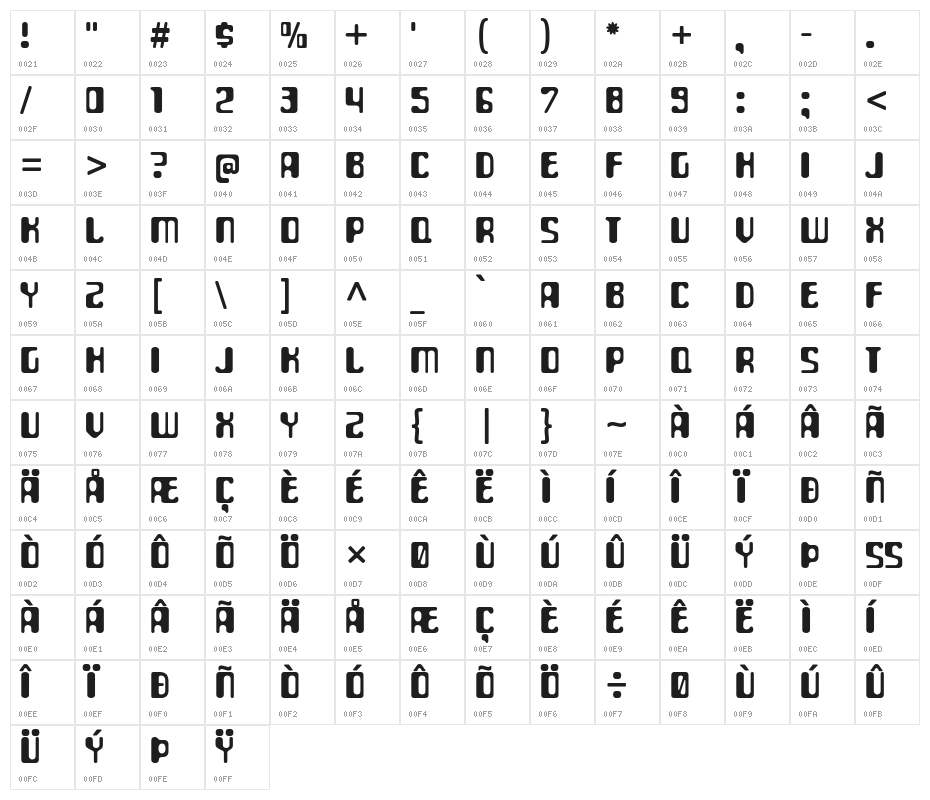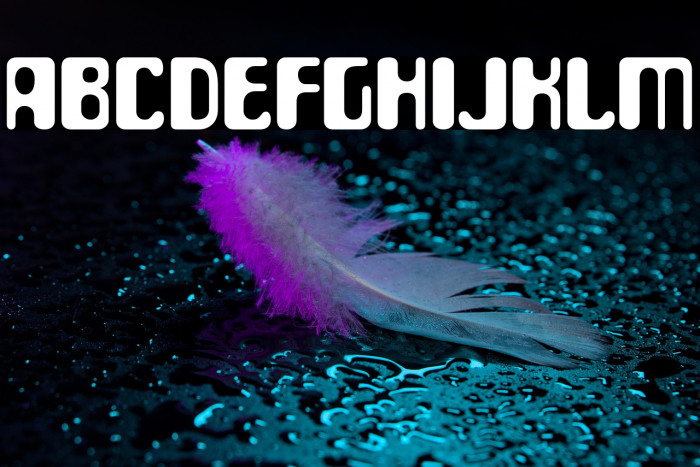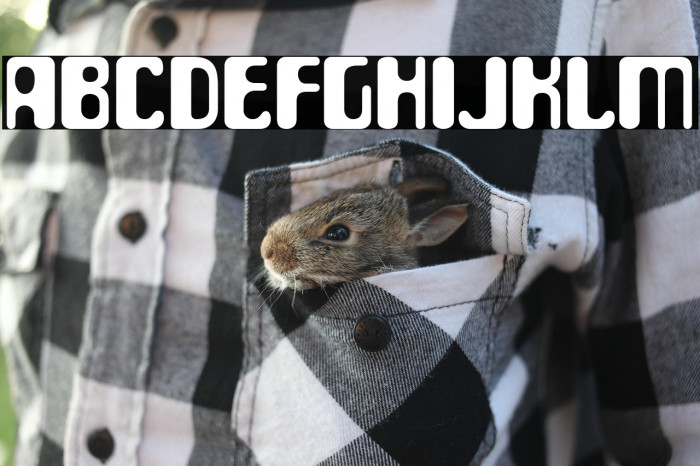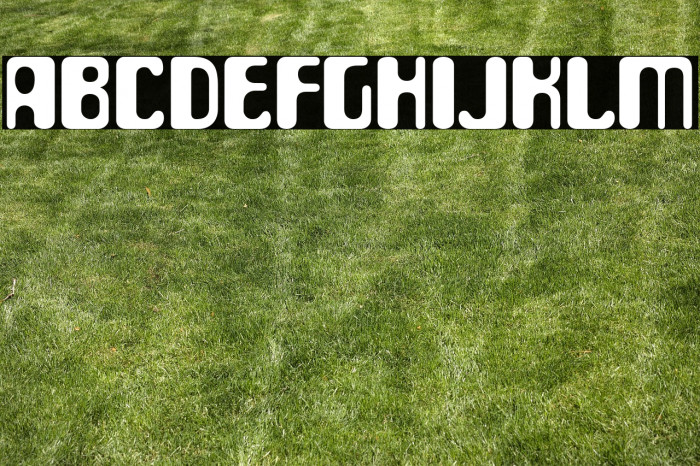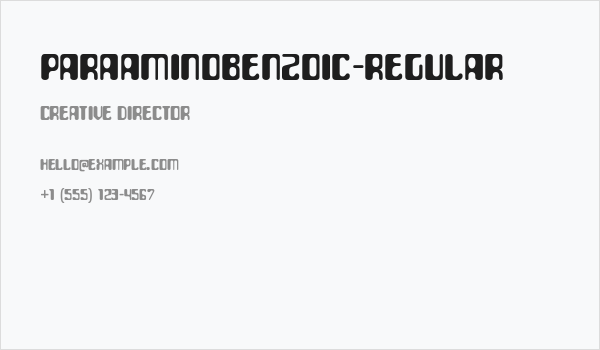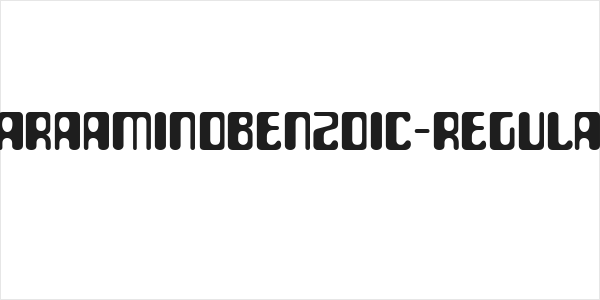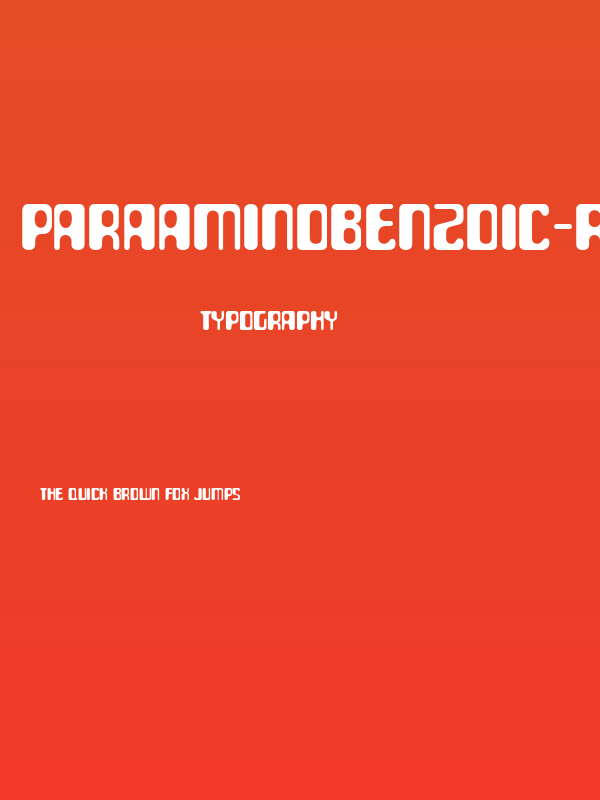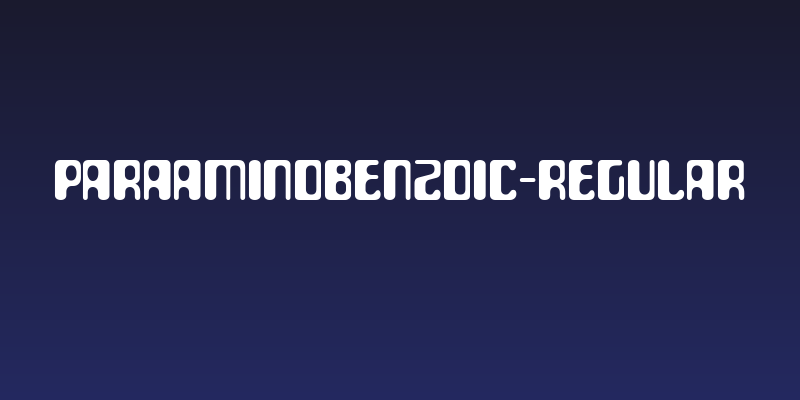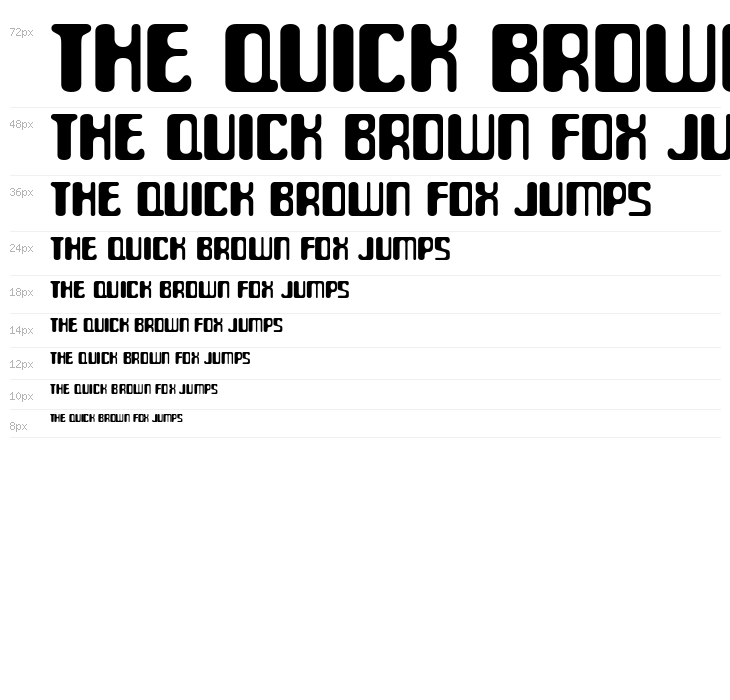
ParaAminobenzoic-Regular Font
ParaAminobenzoic-Regular Description
This font features a bold and rounded style, characterized by its thick strokes and smooth curves. The letters have a modern and playful appearance, with a consistent weight across all characters. The rounded edges give it a friendly and approachable feel, making it suitable for a variety of design projects. The numerals and special characters maintain the same boldness and rounded form, ensuring uniformity throughout the typeface. This font's distinct style makes it ideal for creating eye-catching headlines and logos.
| Proposed Projects | Ideal for branding, advertising, posters, and any project requiring a bold and friendly typeface. |